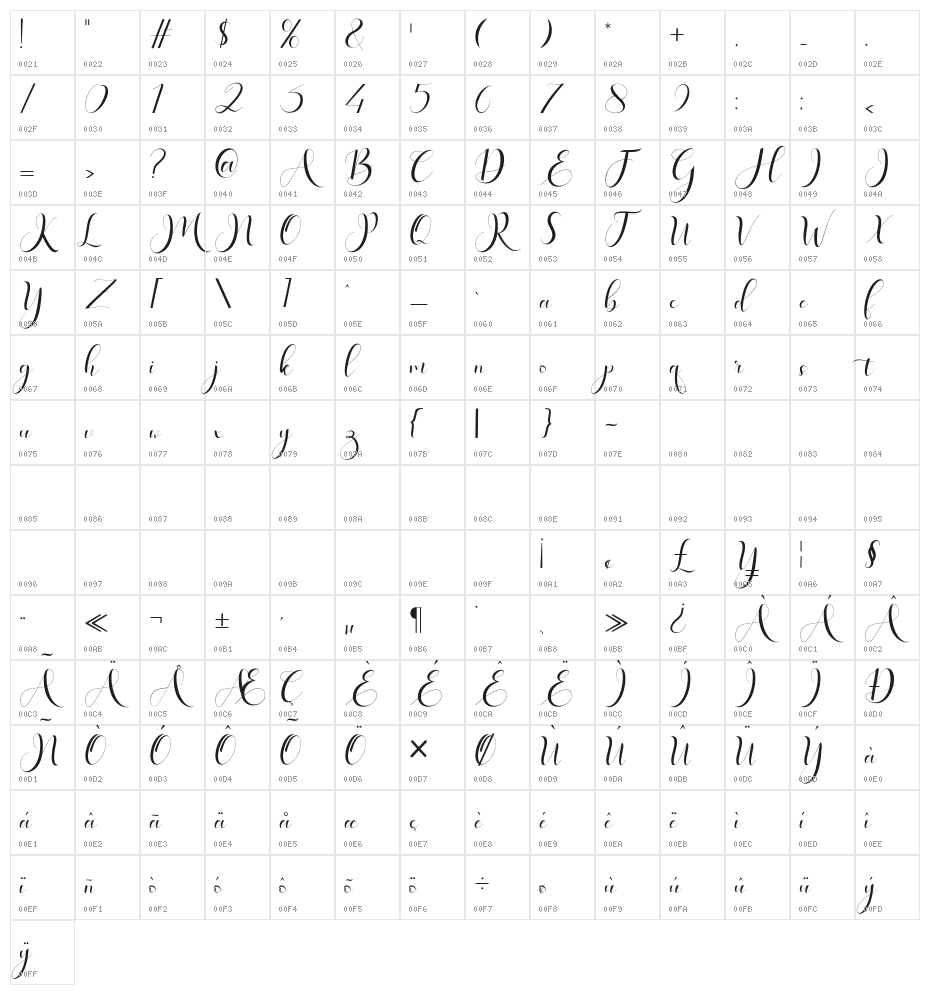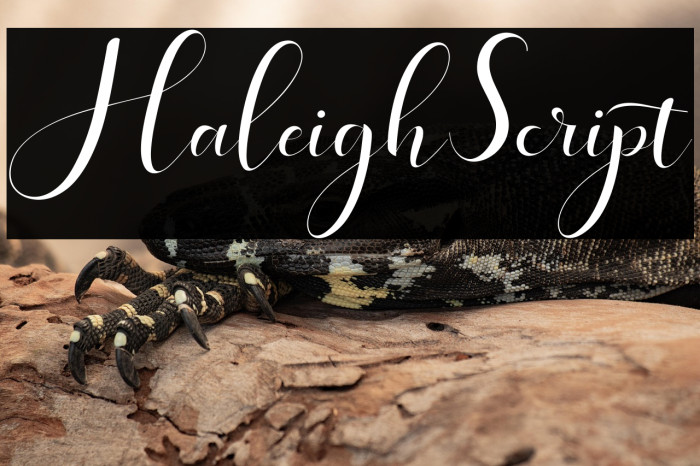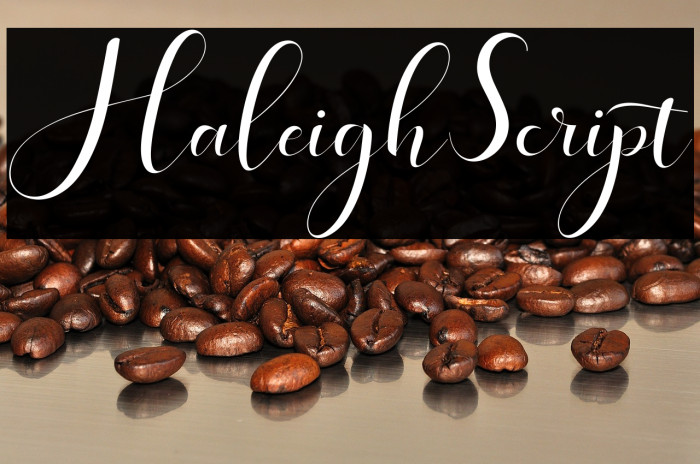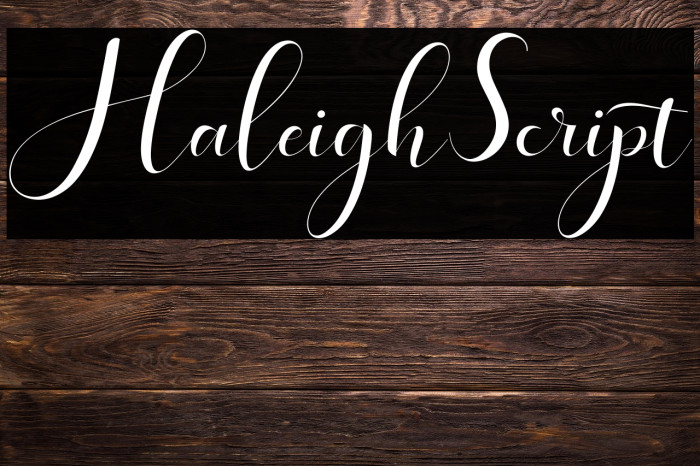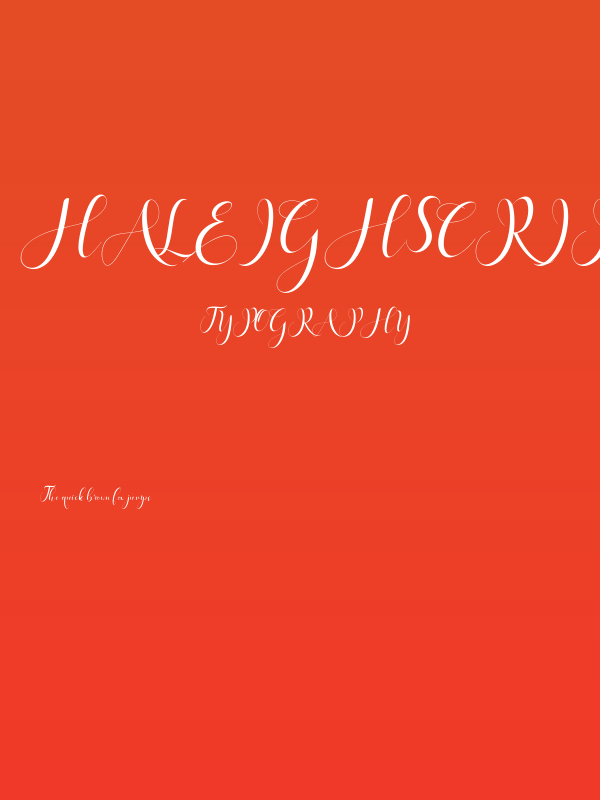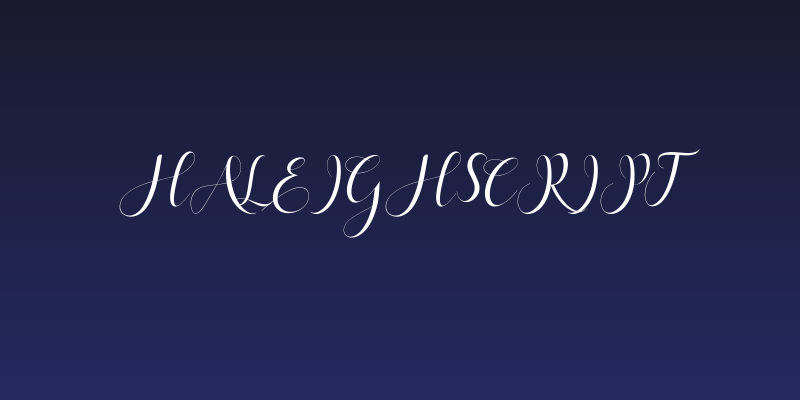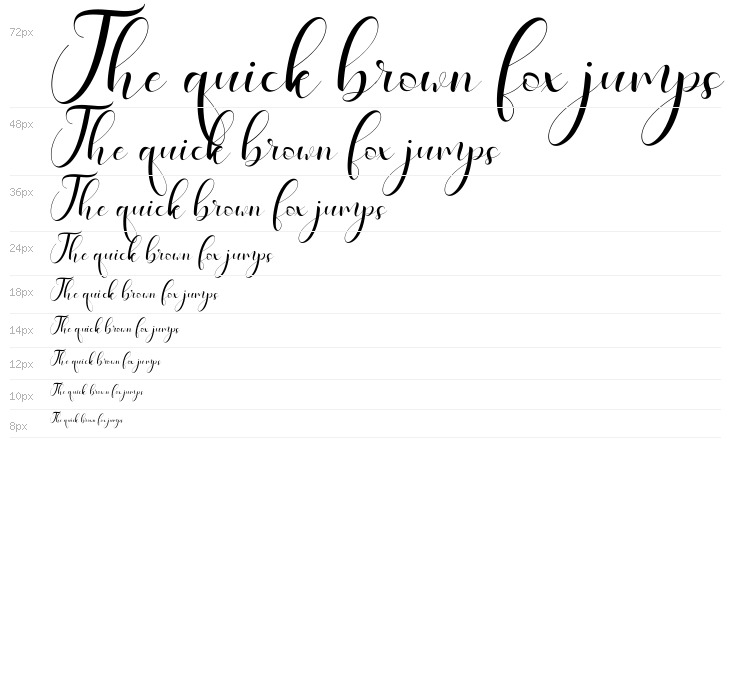
HaleighScript Font
HaleighScript Description
This elegant script font features fluid, graceful strokes that mimic the natural flow of handwriting. The uppercase letters are characterized by their sweeping curves and delicate loops, while the lowercase letters maintain a consistent rhythm with subtle variations in stroke width. The numerals and special characters complement the alphabet with their stylish and sophisticated design. This font exudes a sense of refinement and is perfect for projects that require a touch of elegance and sophistication.
| Overall Style | Elegant, Sophisticated |
| Use Case | Logos, Invitations, Branding |
| Proposed Projects | Ideal for wedding invitations, elegant branding, personal stationery, and upscale packaging. |